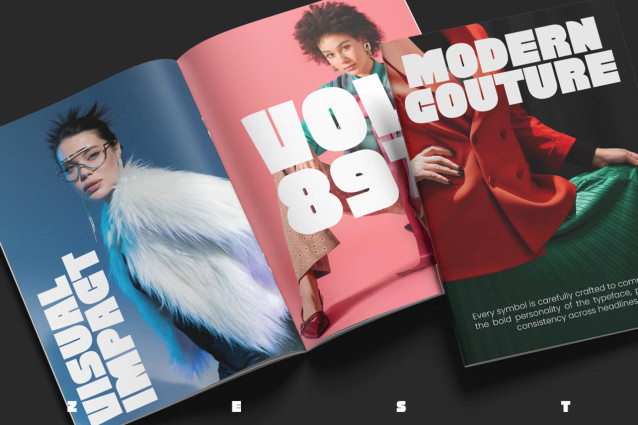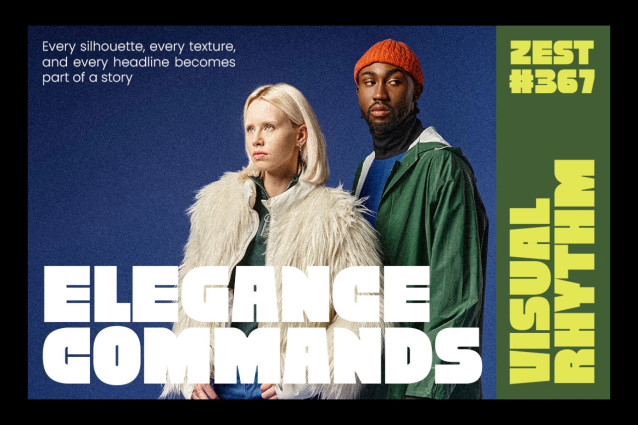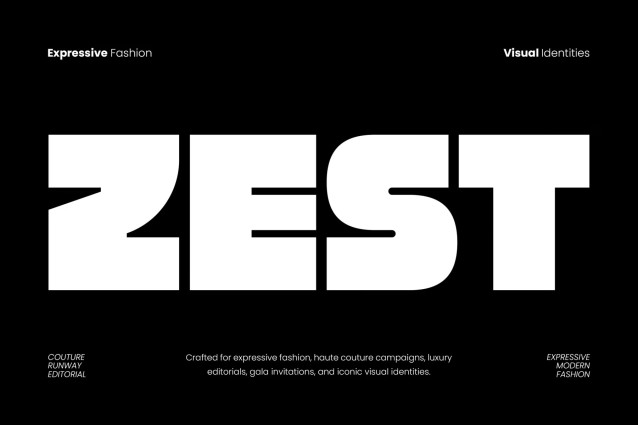
ZEST Font
Instagram Font ZEST transforms bold typography into a striking visual experience with oversized geometric letterforms and a confident editorial style. Moreover, its clean construction delivers a modern appearance, while its strong proportions give every headline exceptional impact. Instead of following ordinary display fonts, ZEST introduces a fresh visual rhythm that immediately attracts attention.
As a result, your branding feels stronger, while your layouts become cleaner and more memorable. In addition, the font balances bold aesthetics with excellent readability across both print and digital media. Even better, it includes Multilingual Support for 67 languages, so you can build a consistent identity for audiences around the world.